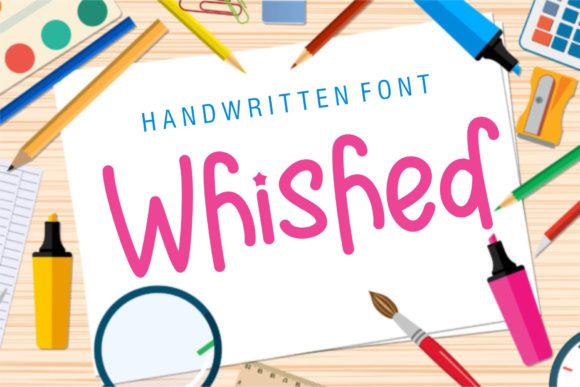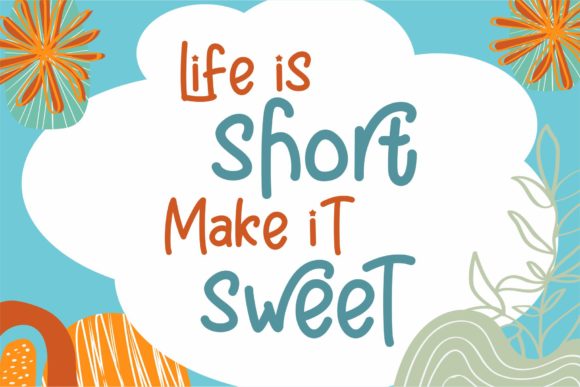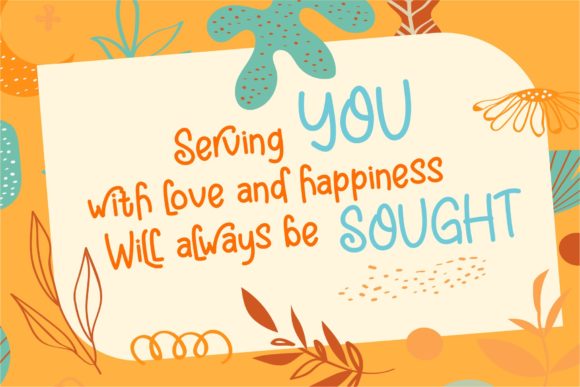
About Wished Font
Wished feels equally charming and elegant. Whether you’re looking for fonts for Instagram or calligraphy scripts for DIY projects, this handwritten font will turn any creative idea into a true piece of art!